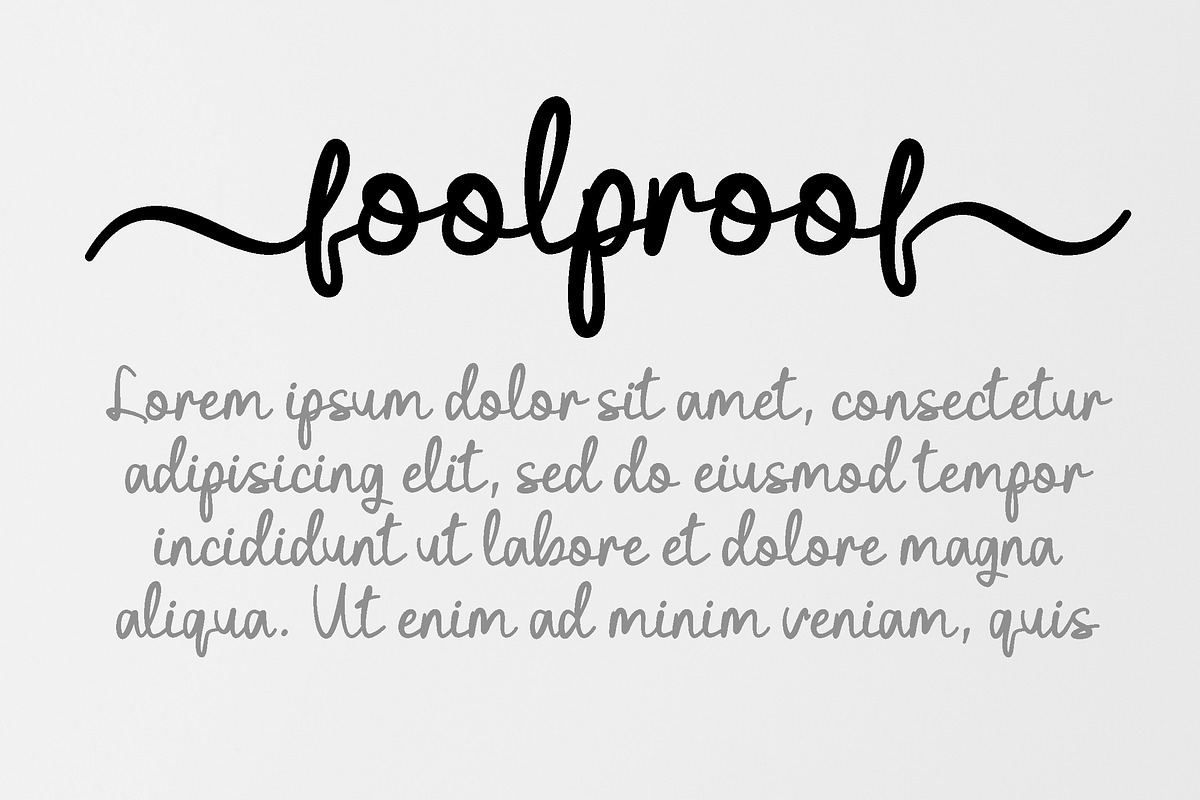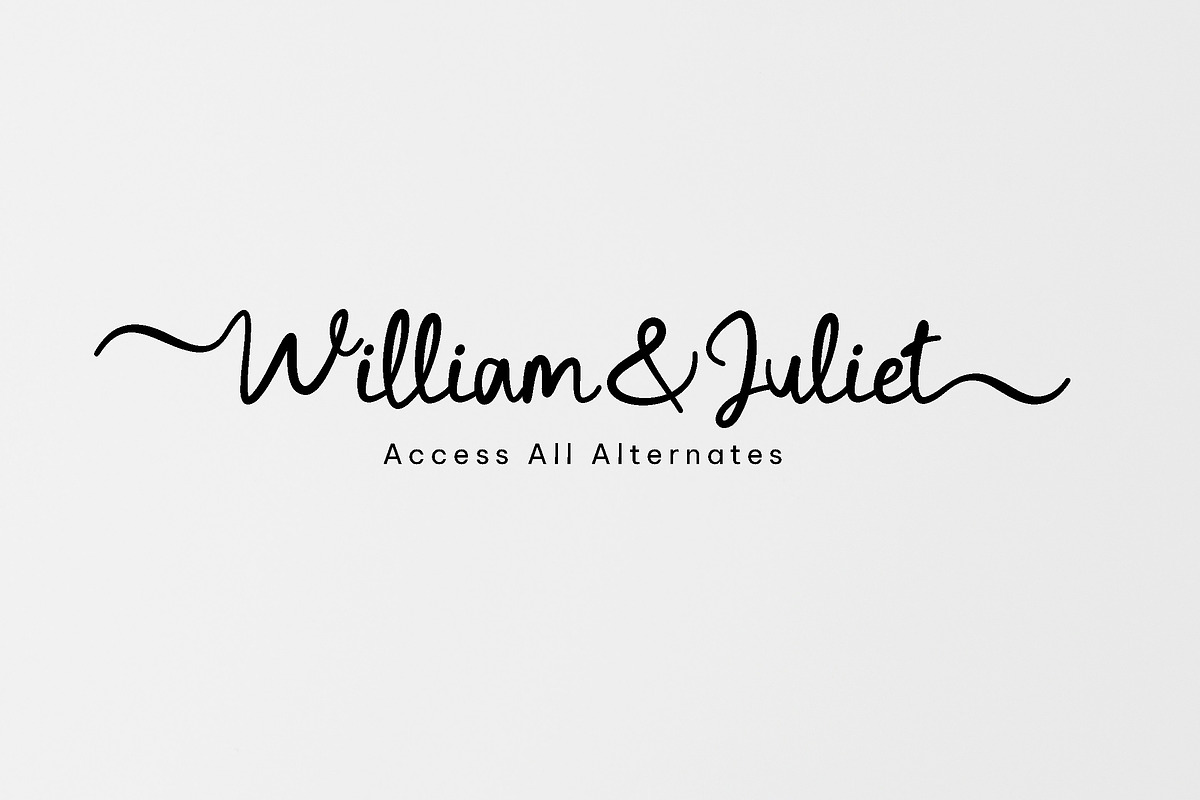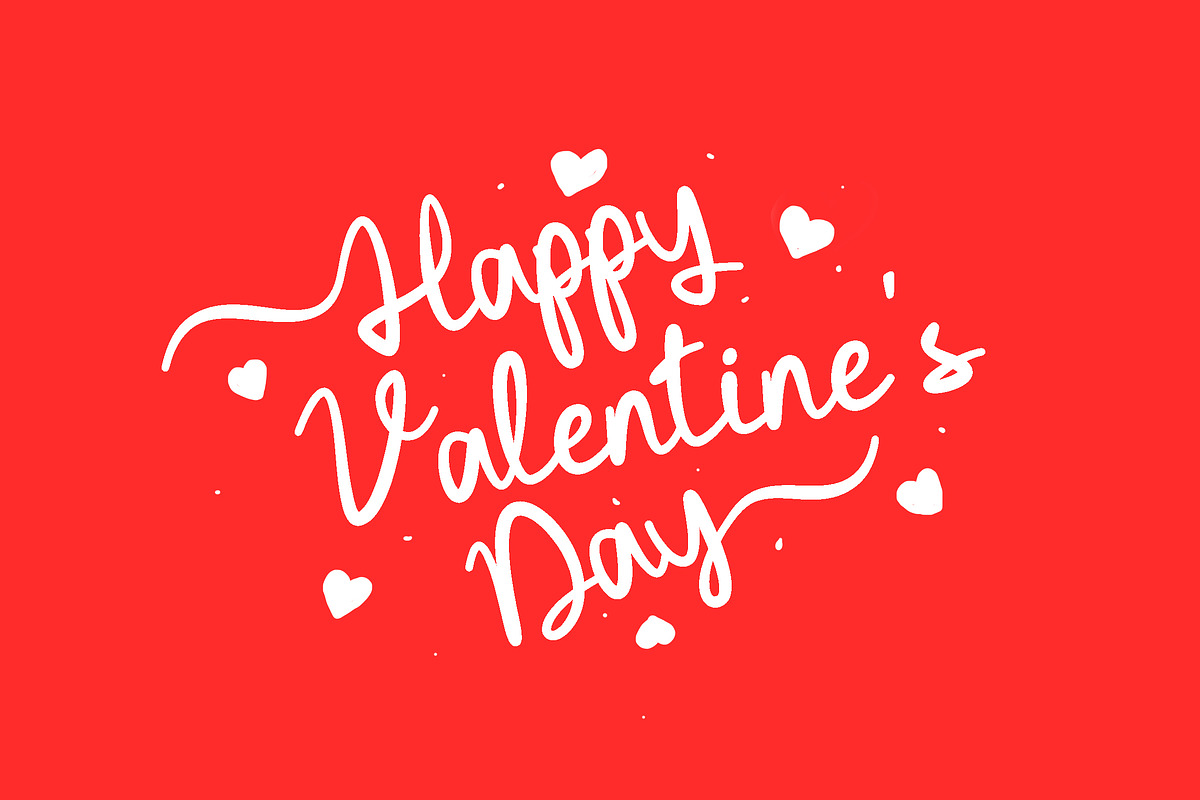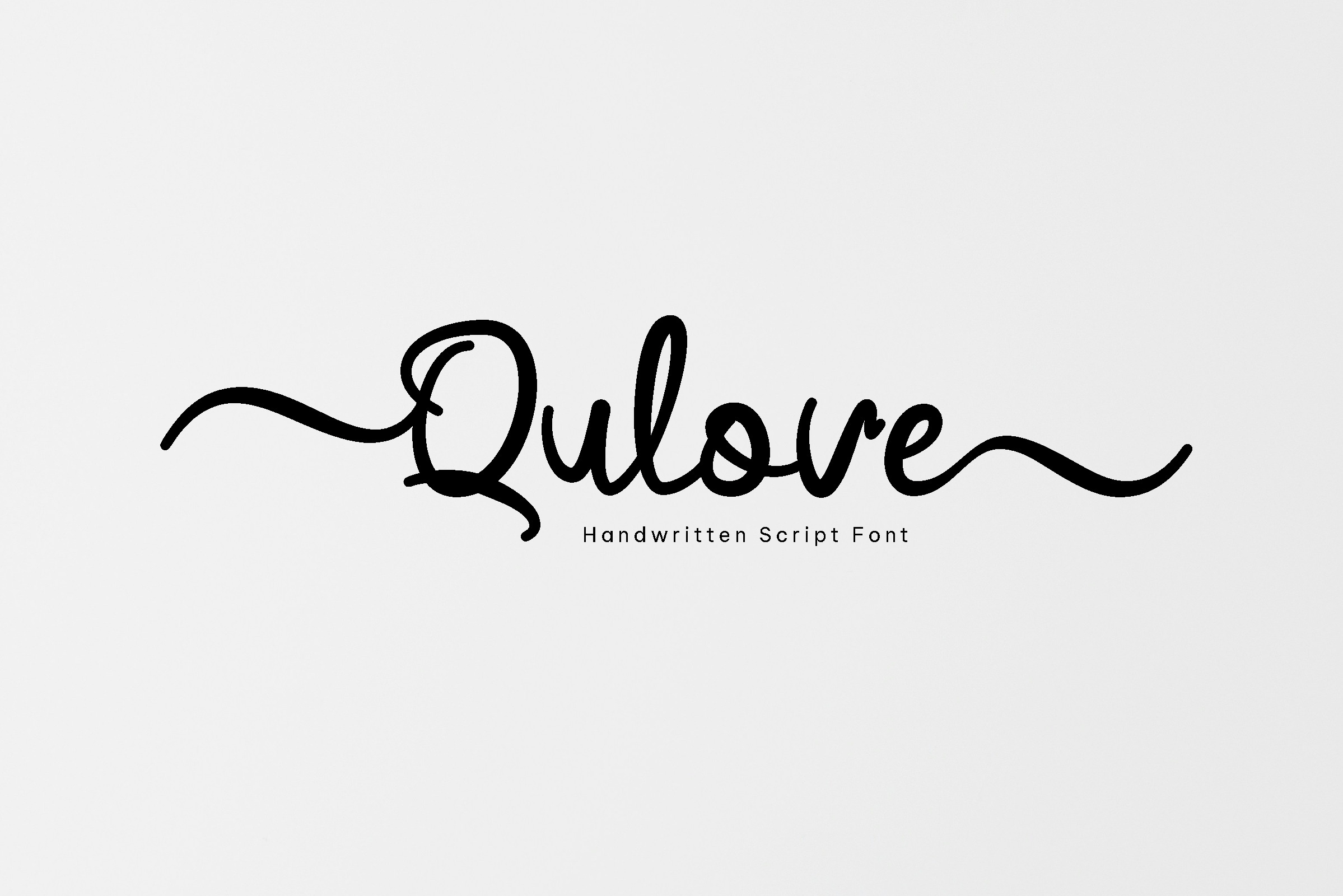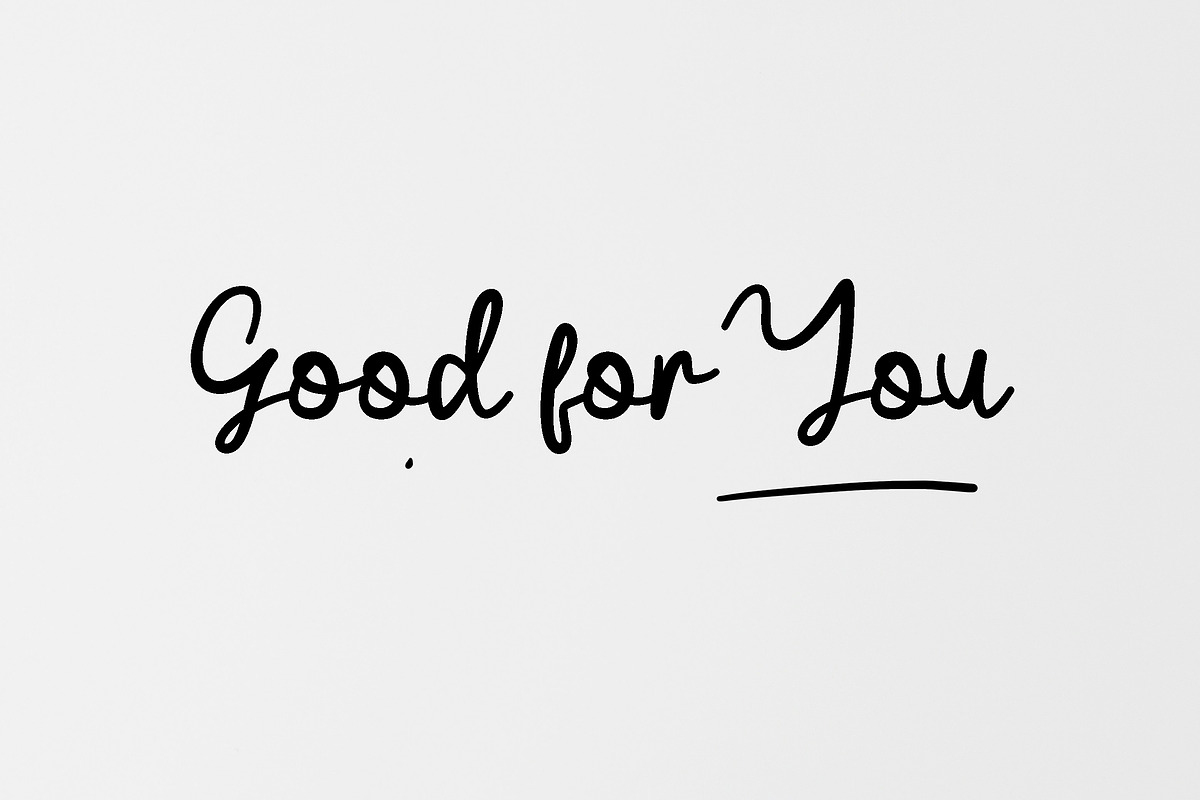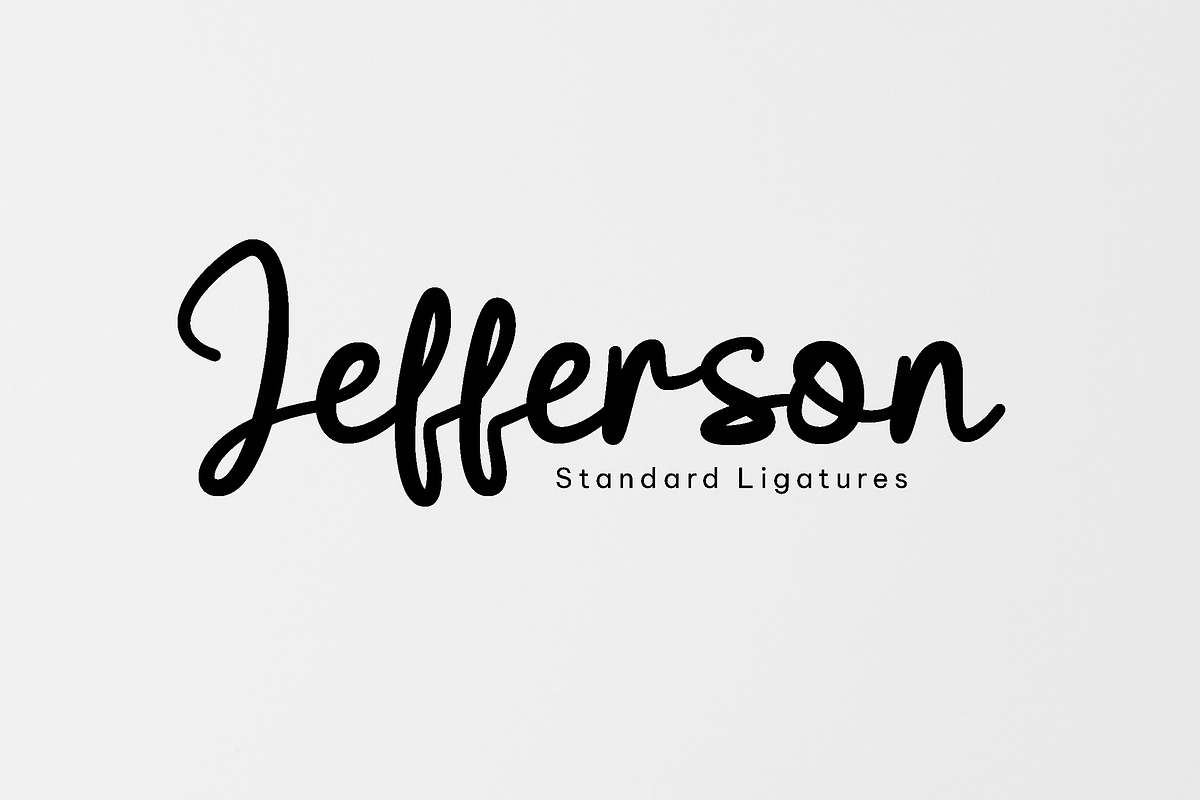
Qulove - Lovely Script Font
Qulove a lovely handwritten script font valentine. Made for any professional project branding. Every letter has a unique and beautiful touch. This font is PUA encoded which means you can access all of the glyphs and alternates with ease! (please type the preview to see if I have what you need!)